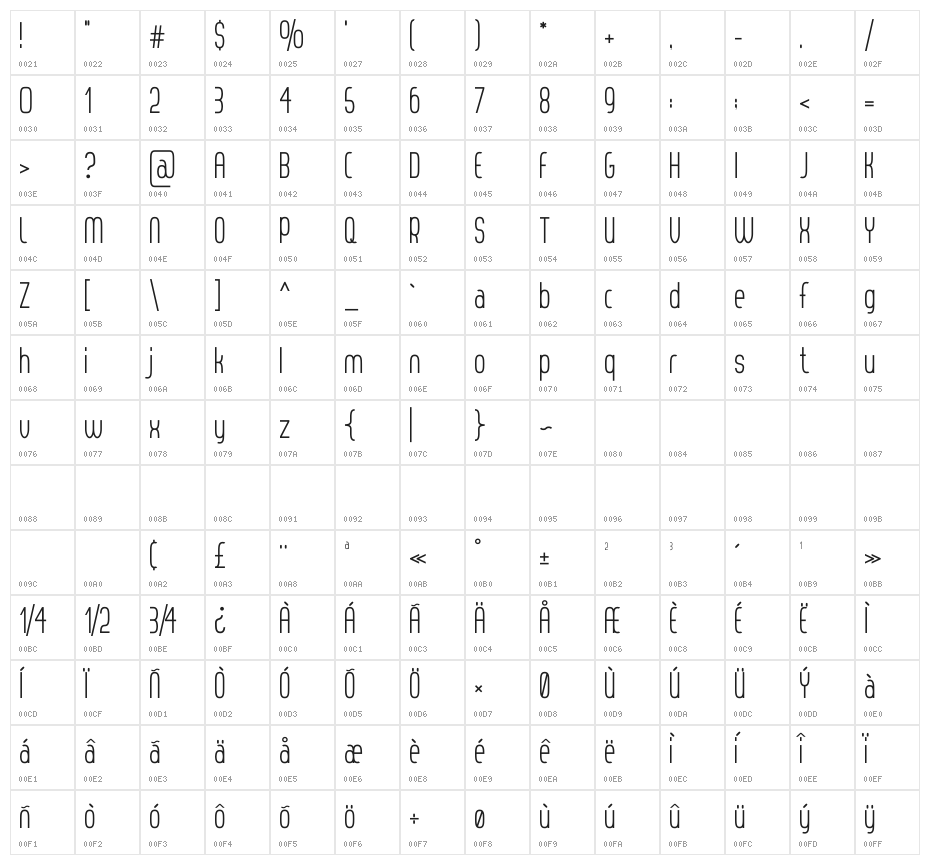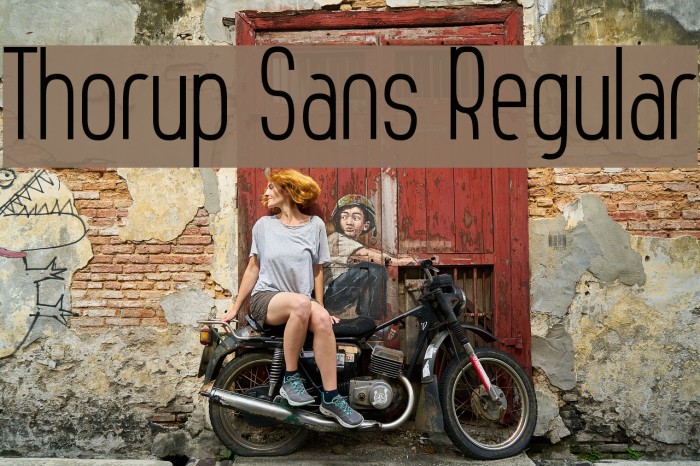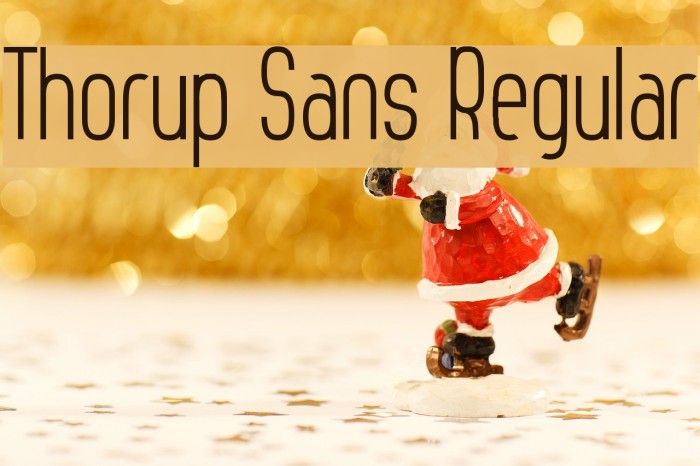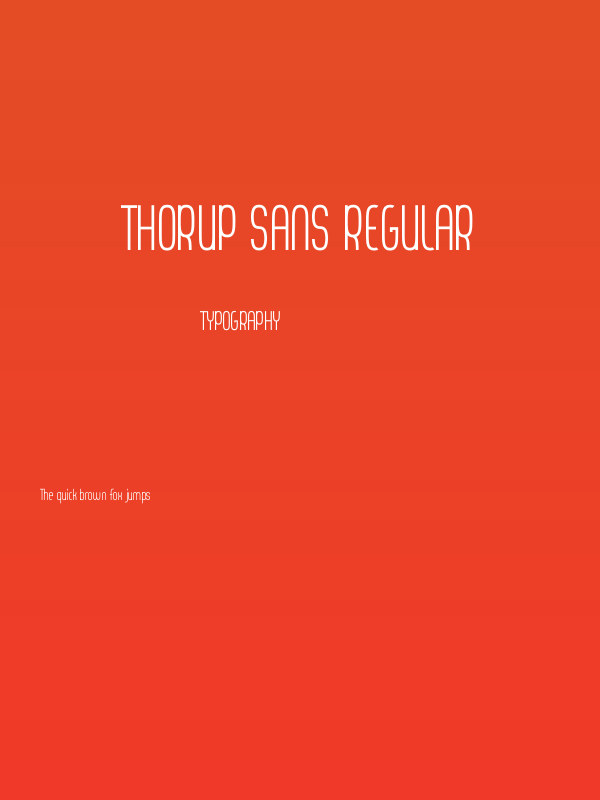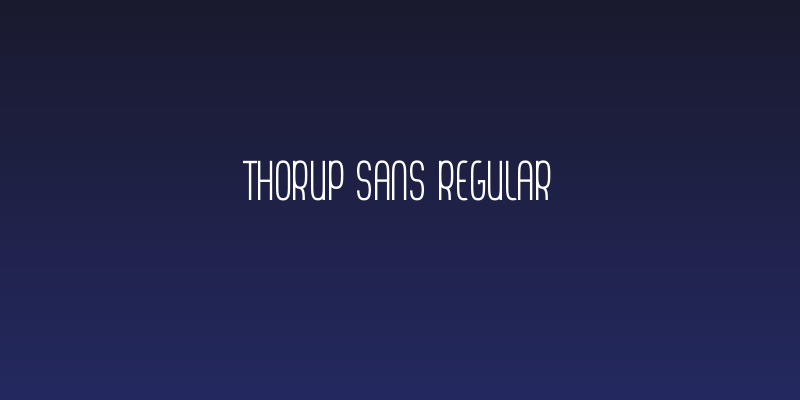
Thorup Sans Regular Font
Thorup Sans Regular Description
This font features a clean and modern sans-serif design with a distinct geometric structure. The characters are tall and narrow, giving it an elegant and sophisticated appearance. The uniform stroke width throughout the characters provides a sense of balance and harmony. The uppercase letters are slightly taller than the lowercase, maintaining a consistent style across both cases. The numerals are clear and legible, making them suitable for various applications. Special characters are well-integrated, maintaining the overall aesthetic of the font. The font's simplicity and clarity make it versatile for a wide range of design projects.
| Proposed Projects | Ideal for branding, editorial design, web design, and advertising materials. |